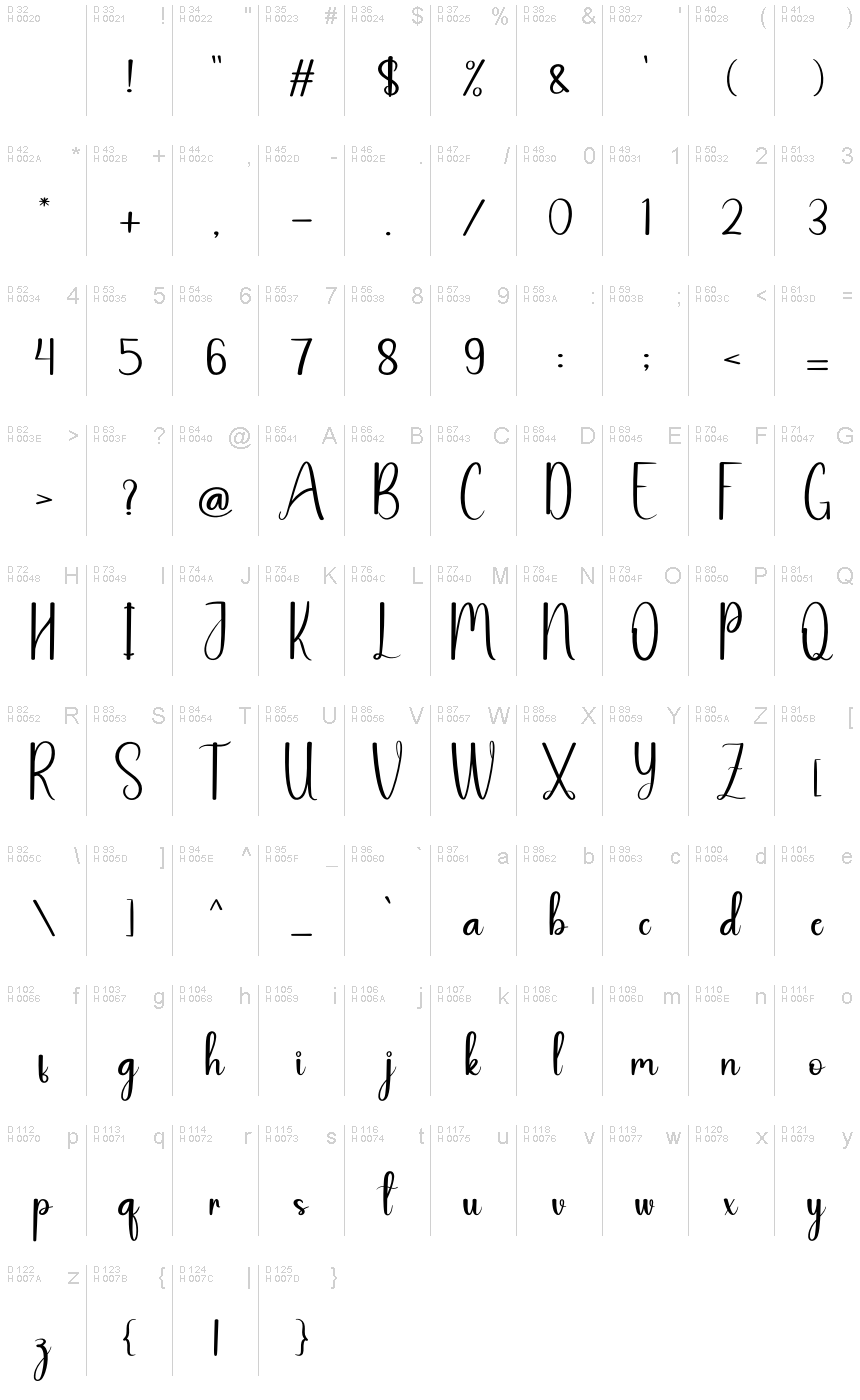
Live Content
Live Content is a captivating handwritten font designed by Andi Moz. With its condensed width and fluid, organic strokes, this font exudes a sense of warmth and authenticity. The distinctive character shapes and playful ligatures lend a charming, hand-crafted feel, making it an excellent choice for branding, packaging, and editorial design projects that seek to convey a personal, artisanal aesthetic.
This font's versatility extends beyond its stylistic appeal. Its condensed width allows for efficient text composition, making it suitable for a wide range of applications, from eye-catching headlines to engaging body copy. Whether you're crafting a brand identity, designing product labels, or curating an editorial layout, Live Content's unique character can elevate the visual impact and leave a lasting impression on your audience.